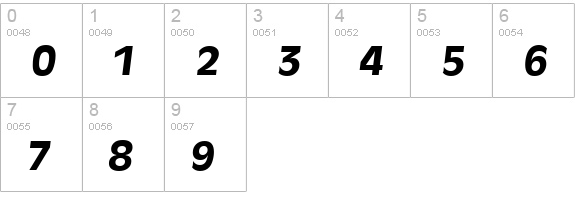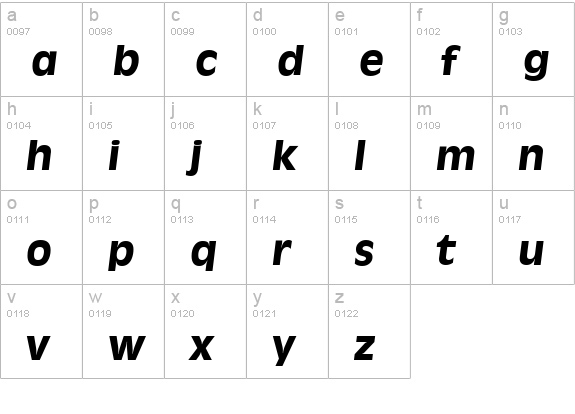
RavennaSerial-Xbold-Italic Font Details
RavennaSerial-Xbold-Italic is a distinctive, italic variant in the RavennaSerial typeface family \xE2\x80\x94 well suited to design and typography projects.
RavennaSerial-Xbold-Italic font is a bold and stylish typeface that exudes confidence and modernity. Its sleek design combines boldness with elegance, making it perfect for creating eye-catching headlines, titles, and designs. The italicized characters add a touch of flair and sophistication to any project. What's even better is that RavennaSerial-Xbold-Italic font is available for free download at FontsMarket.com. This means you can easily access this stunning font and use it in your creative projects without any cost. Whether you're designing posters, logos, or websites, this versatile font will make your text stand out and leave a lasting impression. Upgrade your typography game with RavennaSerial-Xbold-Italic font today and elevate your designs to the next level.